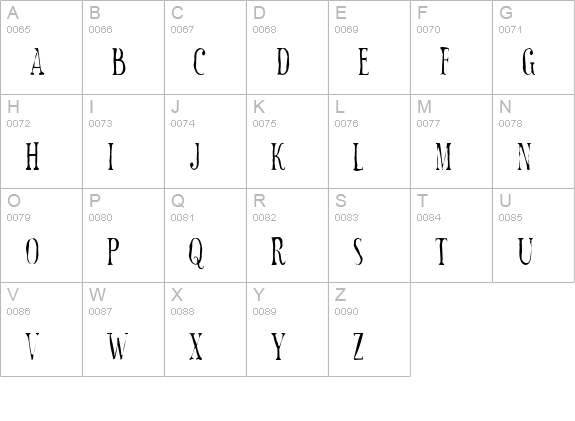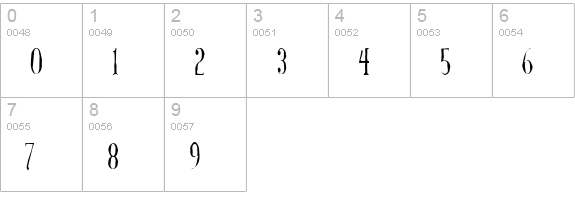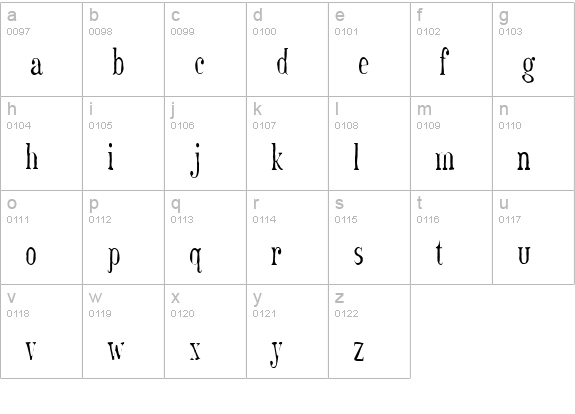
Sexsmith Gaunt Font Details
Sexsmith Gaunt is a modern and elegant serif font that exudes sophistication and class. With its sleek lines and sharp angles, this typeface is perfect for creating eye-catching designs that demand attention. The unique characteristics of Sexsmith Gaunt make it versatile for a wide range of projects, from branding to editorial design. What sets Sexsmith Gaunt apart is its seamless blend of traditional elements with a contemporary twist, giving it a timeless and stylish appeal. Whether you're working on a fashion magazine layout or a luxury branding project, this font will elevate your design to the next level. Best of all, Sexsmith Gaunt is available for free download at FontsMarket.com, making it accessible to designers of all skill levels. Don't miss out on the opportunity to add this stunning font to your collection and take your designs to new heights.